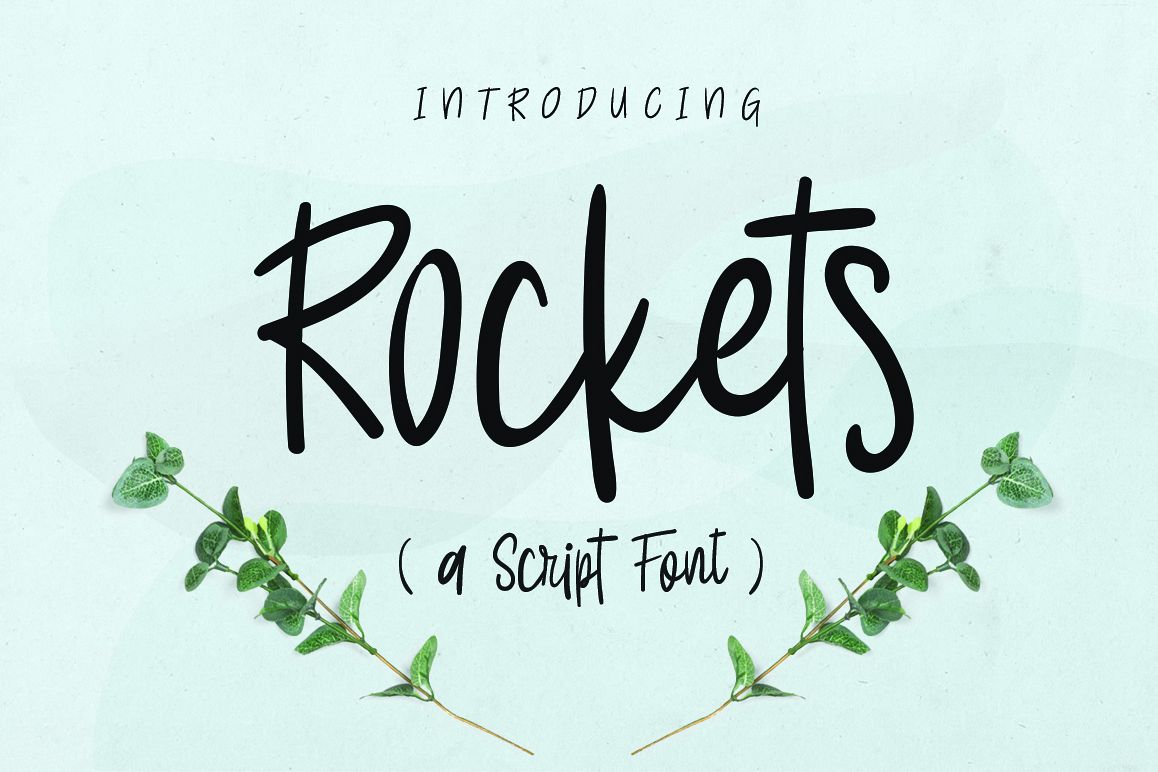
a Rockets Script handwriten font a good for make your design looks "girly". Easy to combine with alternates glyphs and swash. nice for design invitation card, wedding, birthday, tittle book, and many more.include this font
- uppercase & lowercase
- lowercase stylistic set alternates
- number & simbol
- ligatures